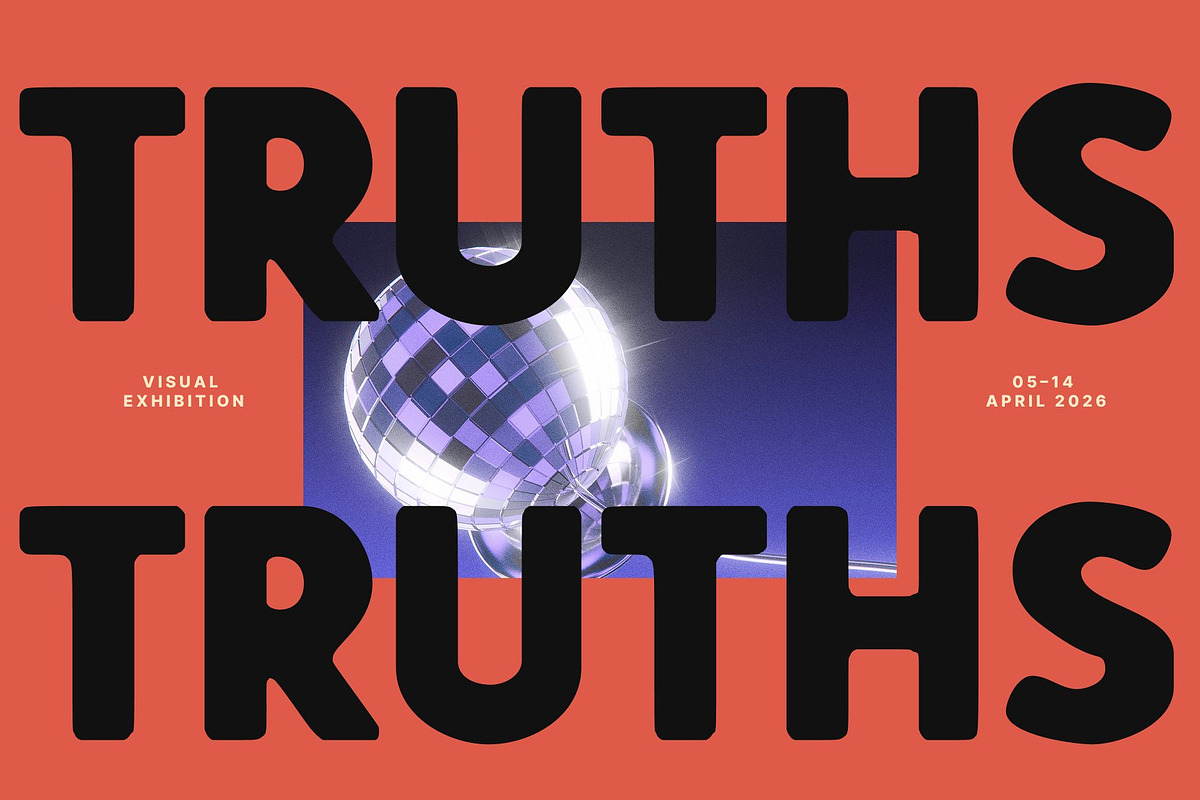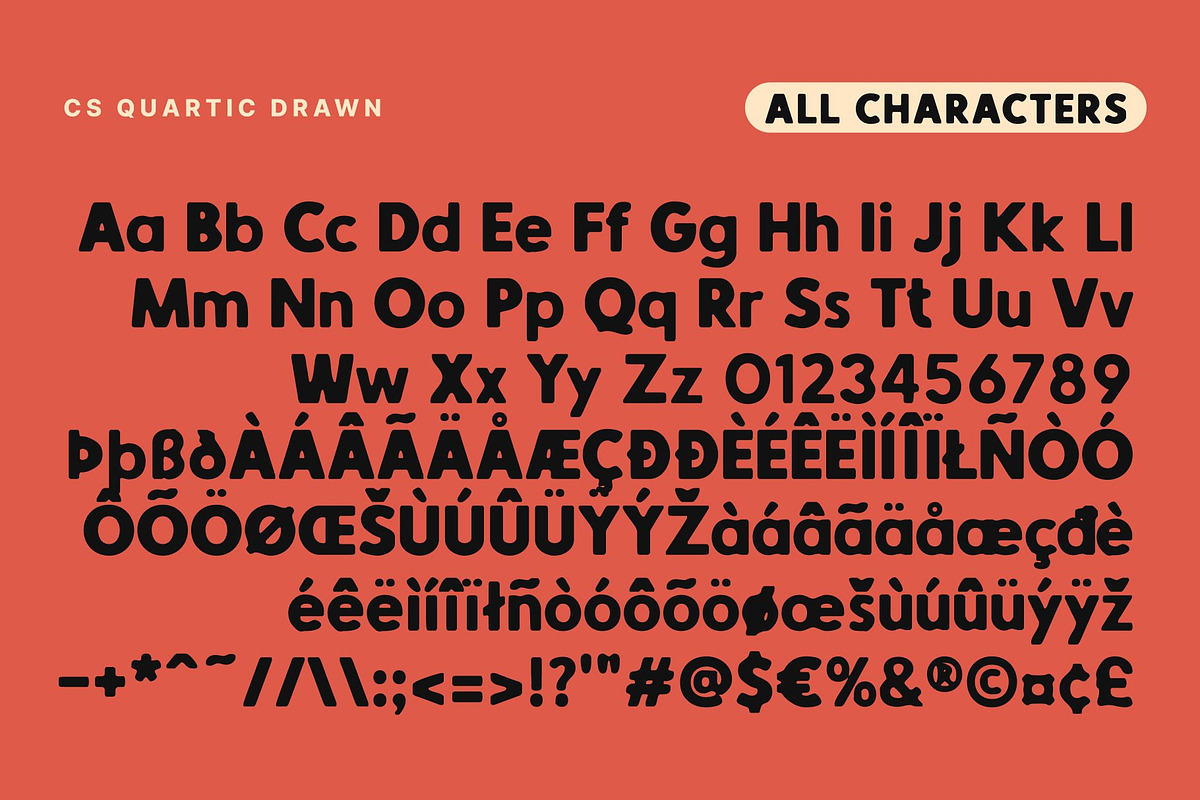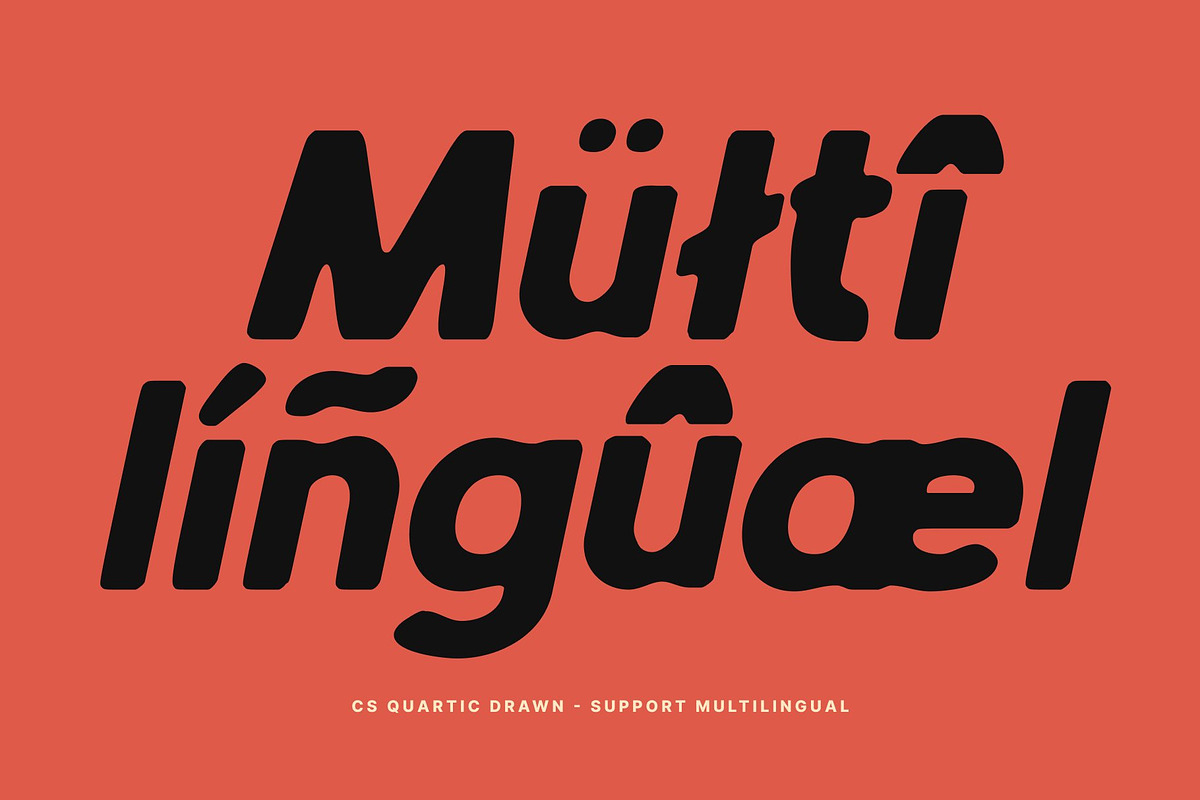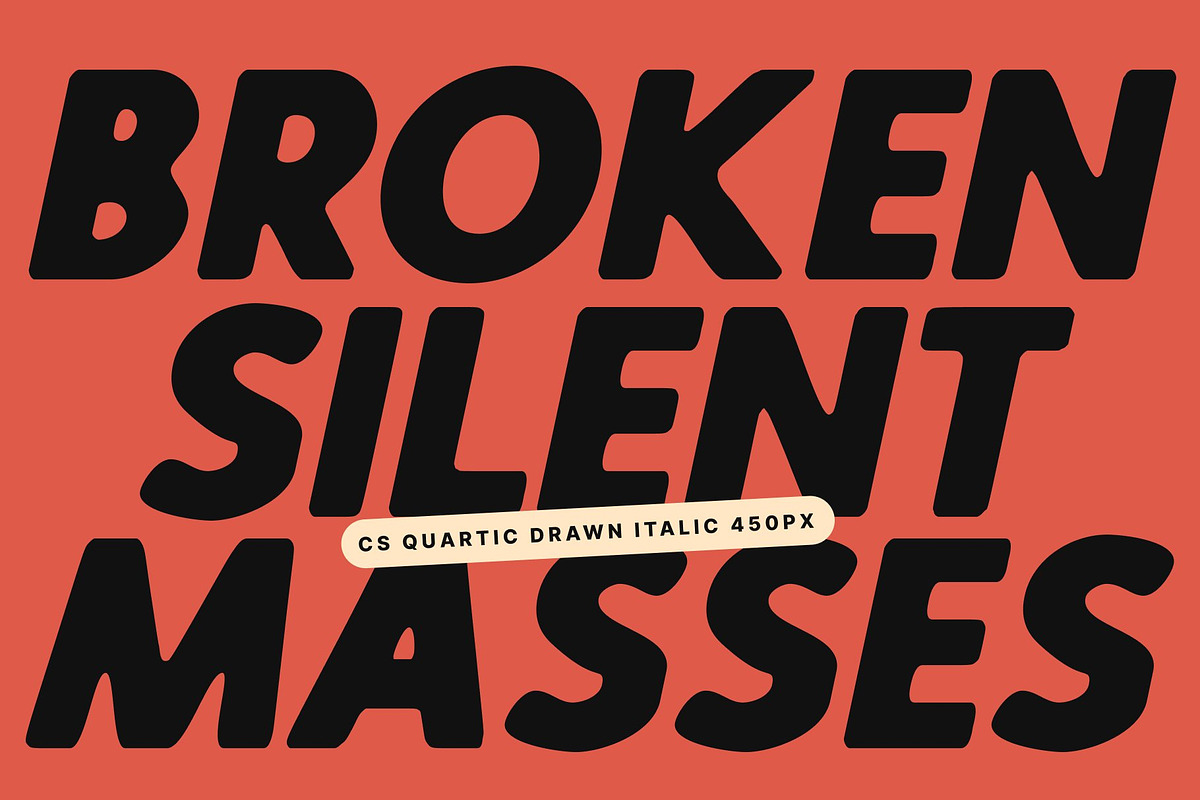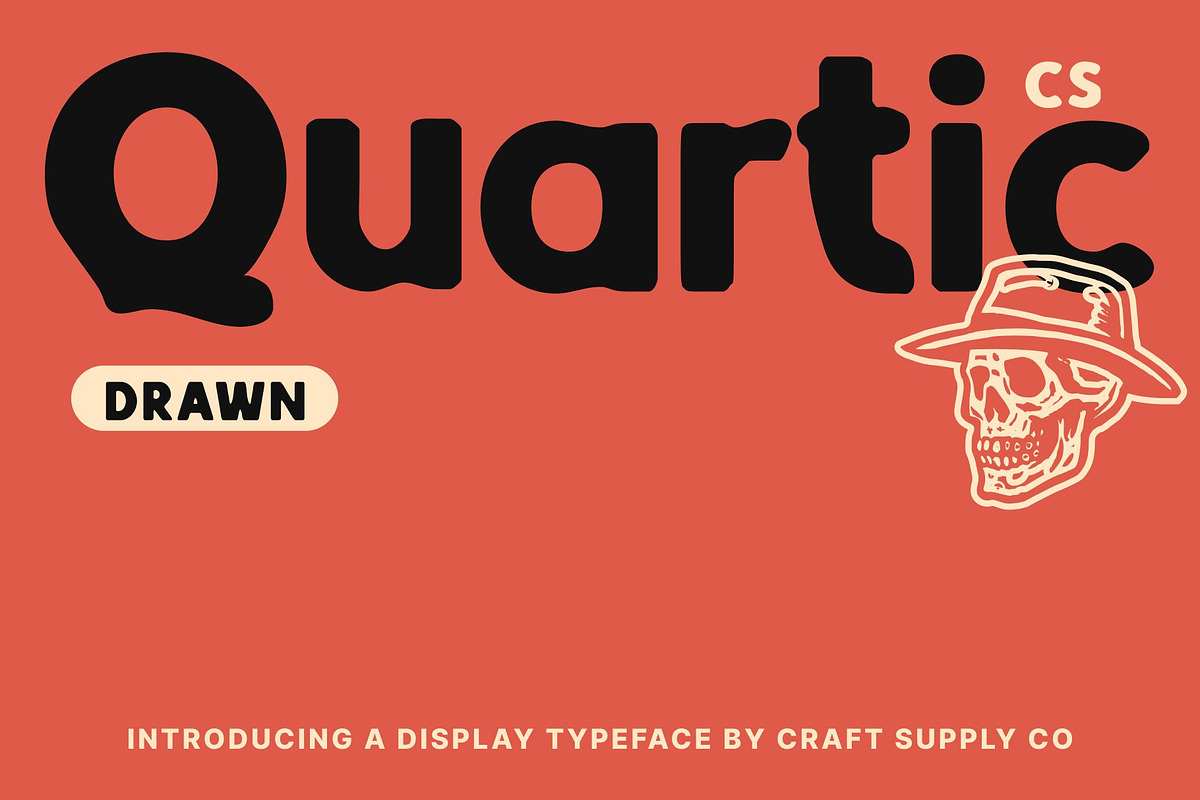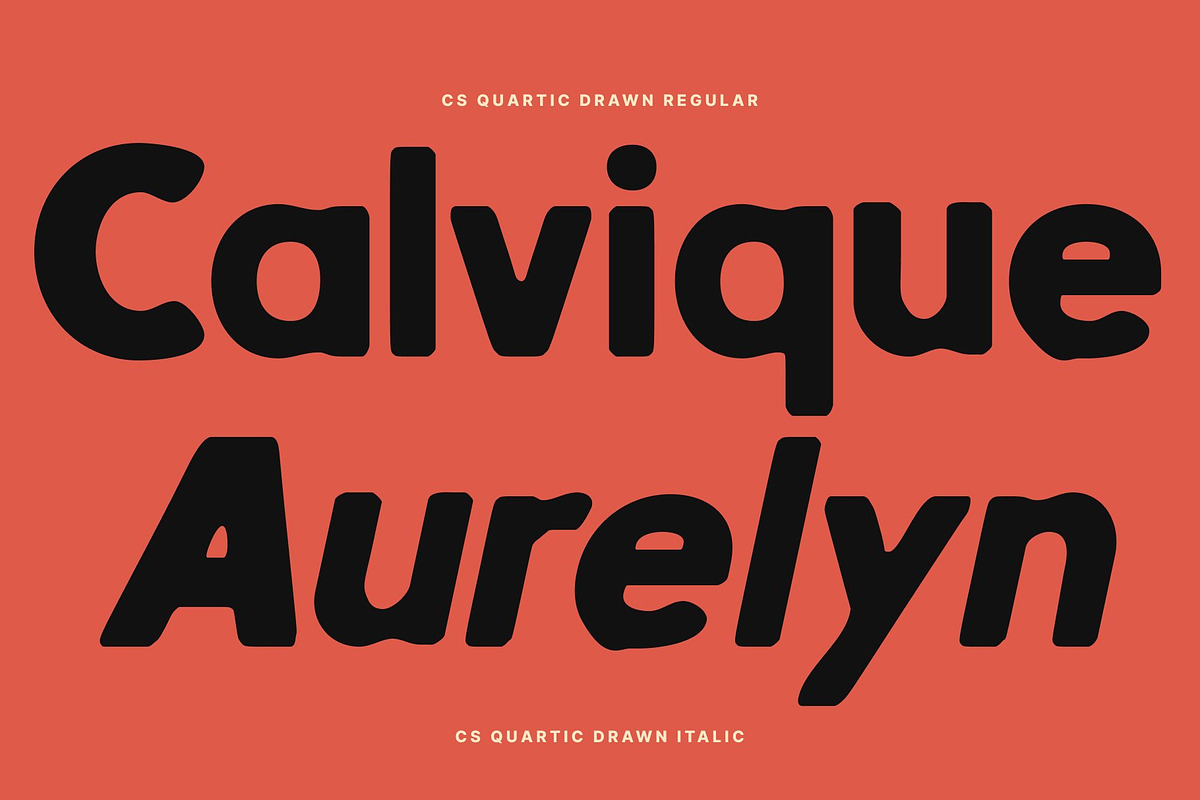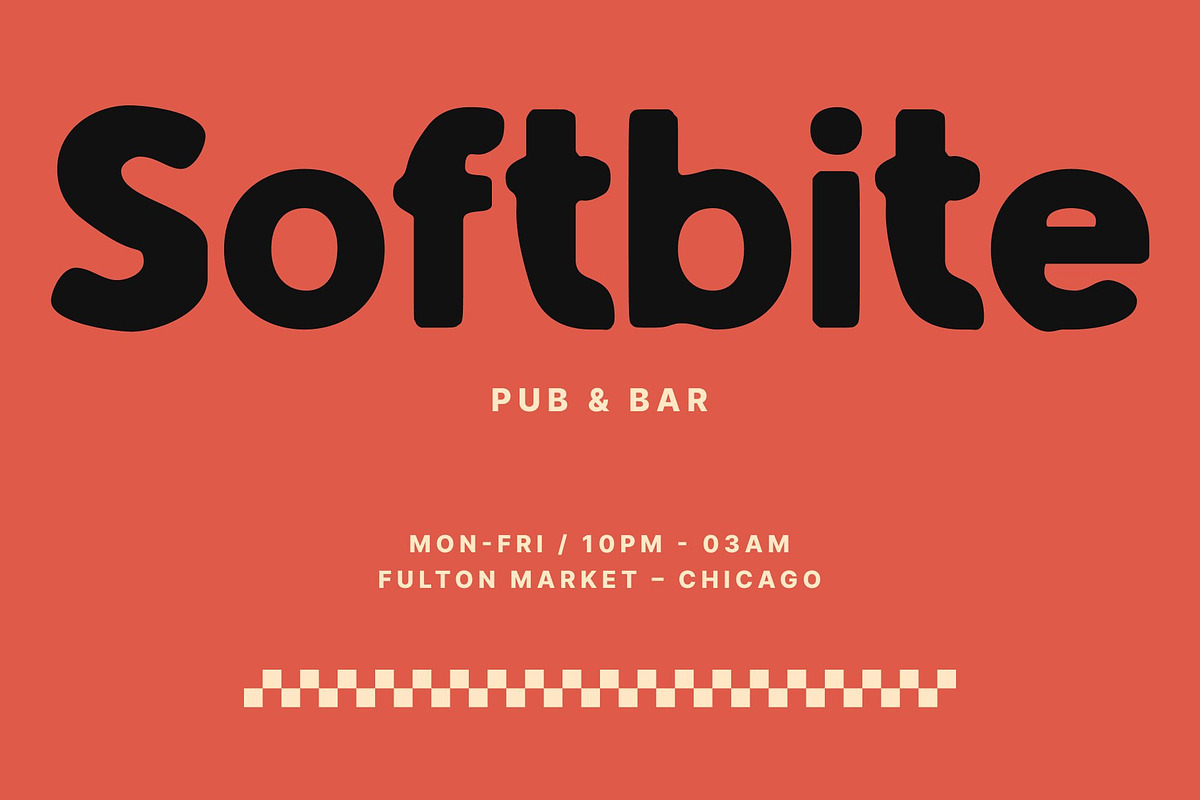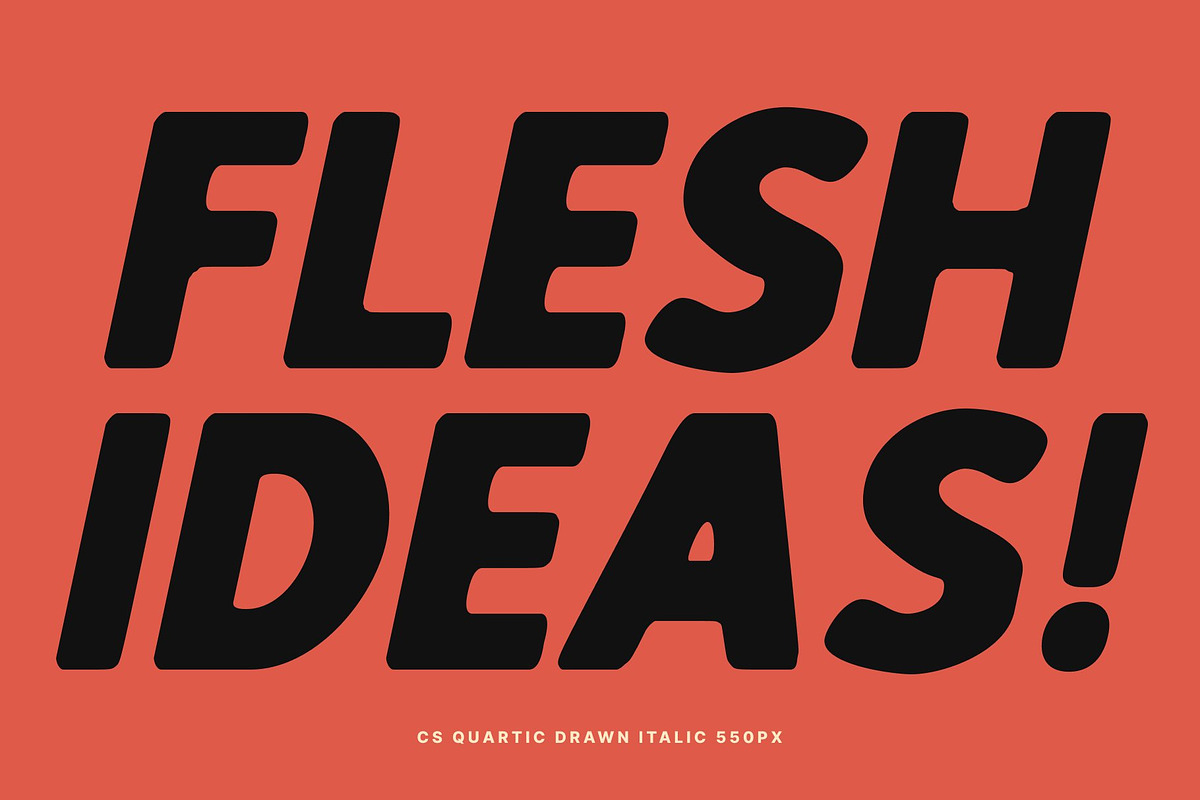
CS Quartic Drawn
CS Quartic Drawn – Bold Modern Sans Serif with Unconventional Hand-Drawn Energy Strong, Clean Structure with Confident Impact This is a bold modern sans serif font built to deliver clarity, strength, and assertive visual presence. Its solid letter construction and clean geometric foundation create a powerful impression, while the drawn treatment introduces a subtle human touch that keeps the design lively and engaging.
Modern Discipline with Expressive, Unconventional Nuance Rooted in contemporary sans serif principles, this font steps beyond convention through small quirks and energetic details. The hand-drawn influence softens the precision of its geometry, adding character and motion without sacrificing readability. This balance of structure and expression makes it ideal for modern designs that demand originality.
Designed for Headlines, Posters, and Bold Branding This font excels in high-impact applications where strength and visibility matter most. It performs exceptionally well in headlines, posters, event graphics, and branding systems that require confident typography. From marketing campaigns to digital content and social media visuals, the font commands attention with ease.
A Typeface for Designers Who Want to Stand Apart Created for creatives who embrace bold ideas and unconventional style, this font anchors layouts with confidence while injecting personality through its drawn energy. The result is a typeface that delivers messages with power, clarity, and a modern edge that’s impossible to ignore.